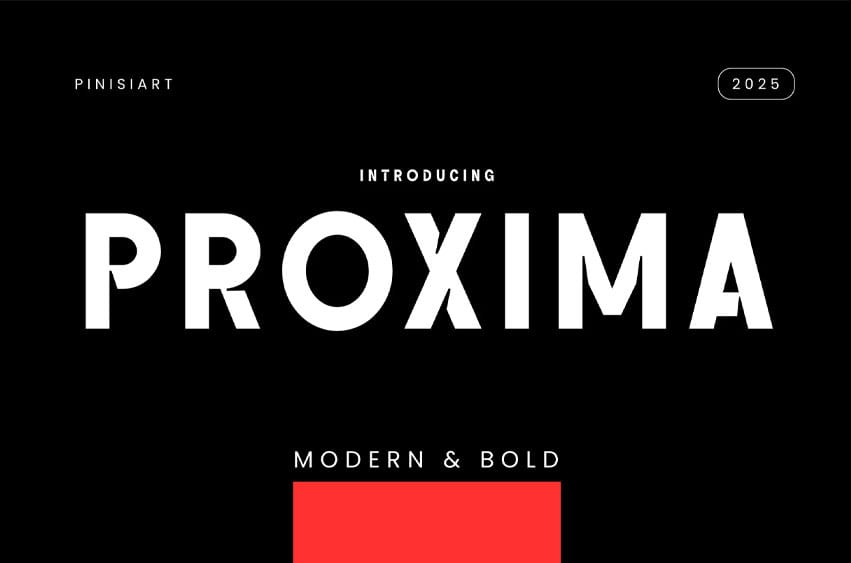
Proxima Font is a modern geometric display typeface with sharp terminals, wide proportions, and bold contrasts that radiate confidence. Its clean letterforms and strong stance make it perfect for luxury branding, digital campaigns, and editorial design. The font’s striking balance of clarity and dominance ensures it commands attention in every setting—whether on Instagram posts, product packaging, or high-end advertising.
Designers looking for a statement-making typeface will find Proxima a natural fit. Its structured yet expressive form adds visual authority to branding projects, while its versatility adapts seamlessly to fashion ads, tech start-ups, poster layouts, and web banners. Whether crafting attention-grabbing headlines or modern editorial spreads, PROXIMA ensures your message looks confident, stylish, and timeless.
Key Features :
- Bold geometric structure – creates sharp, modern aesthetics
- Versatile design – adapts to luxury, tech, and lifestyle branding
- Attention-grabbing weight – perfect for posters, packaging, and campaigns
- Clean readability – strong impact without sacrificing clarity
- Professional edge – pairs well with minimalist design styles